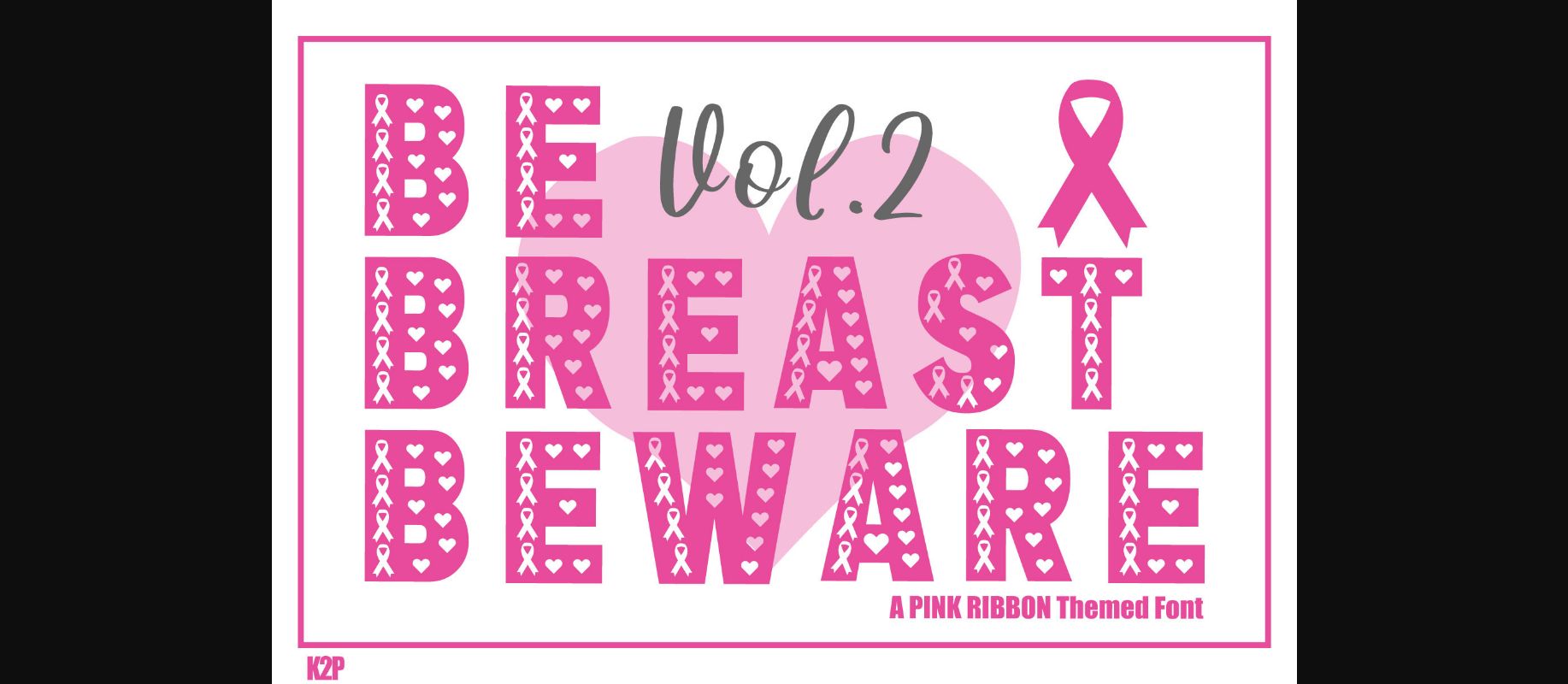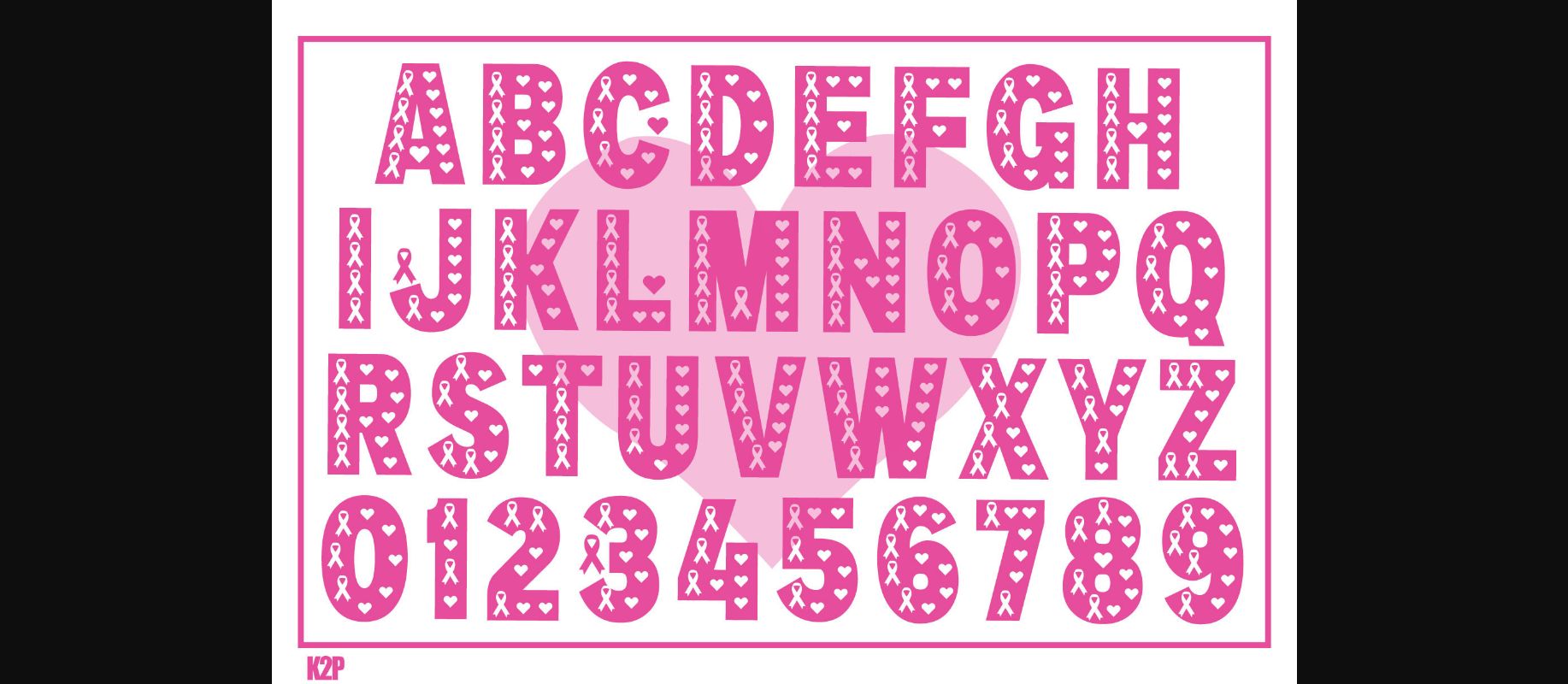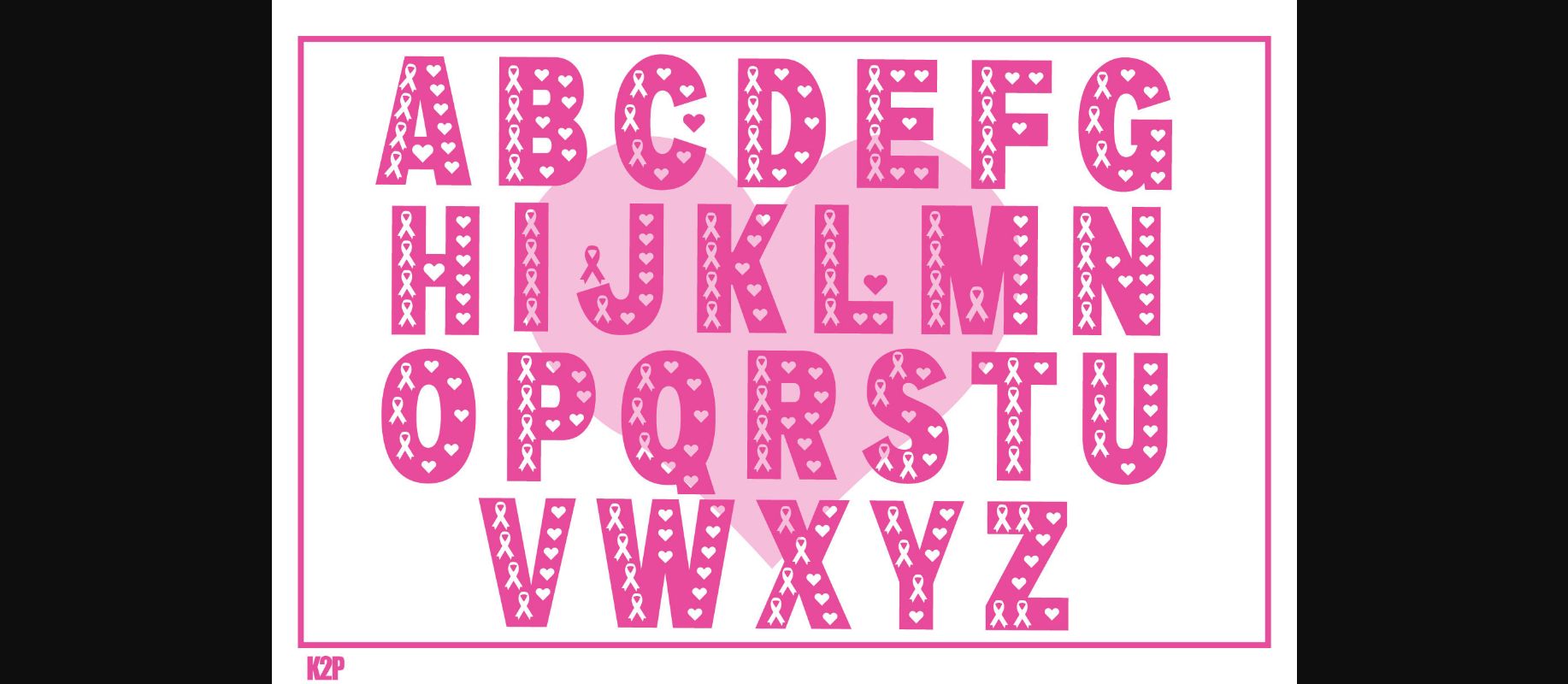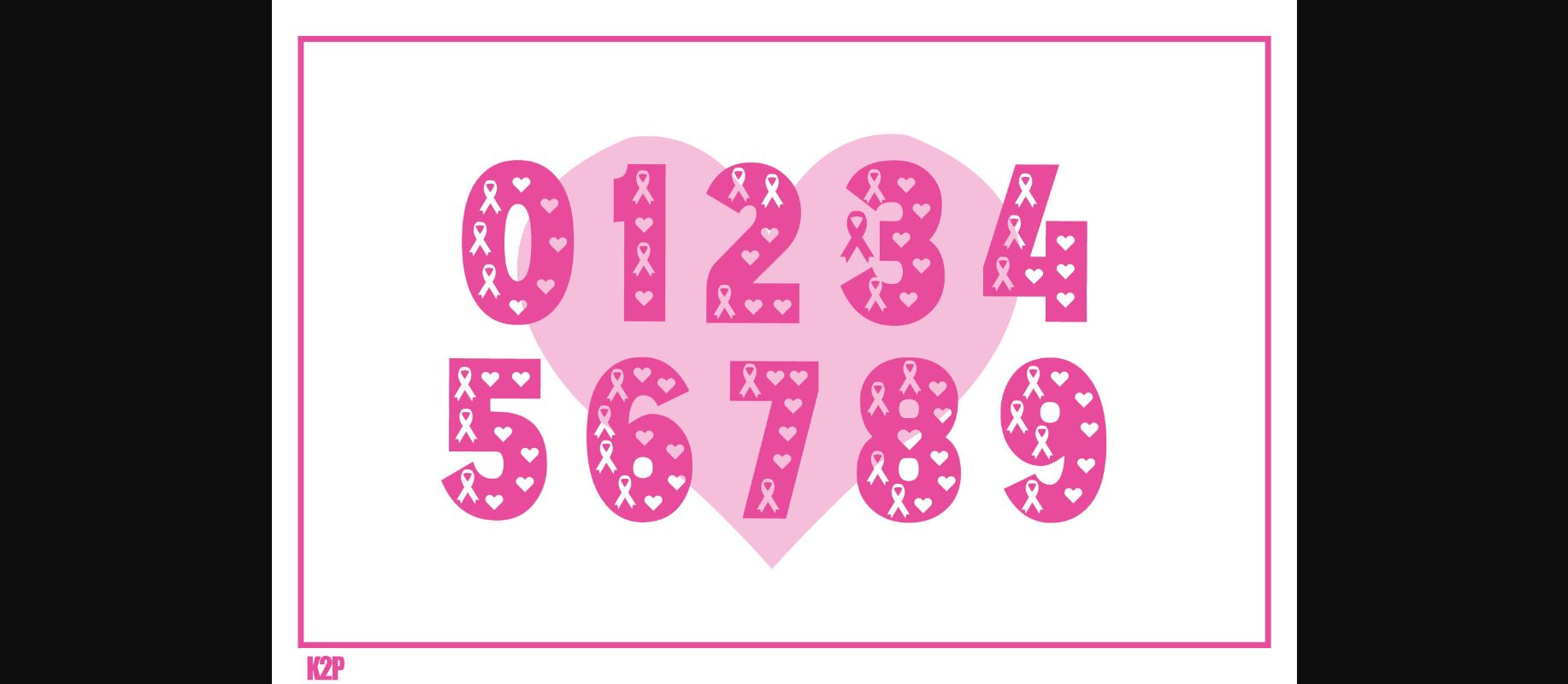
About Be Breast Beware Vol.2 Font
Be Breast Beware Vol.2 is a thick-lettered and unique decorative font. It is perfectly suitable for any breast cancer awareness-related project or crafty idea! This font is PUA encoded which means you can access all glyphs and swashes with ease!